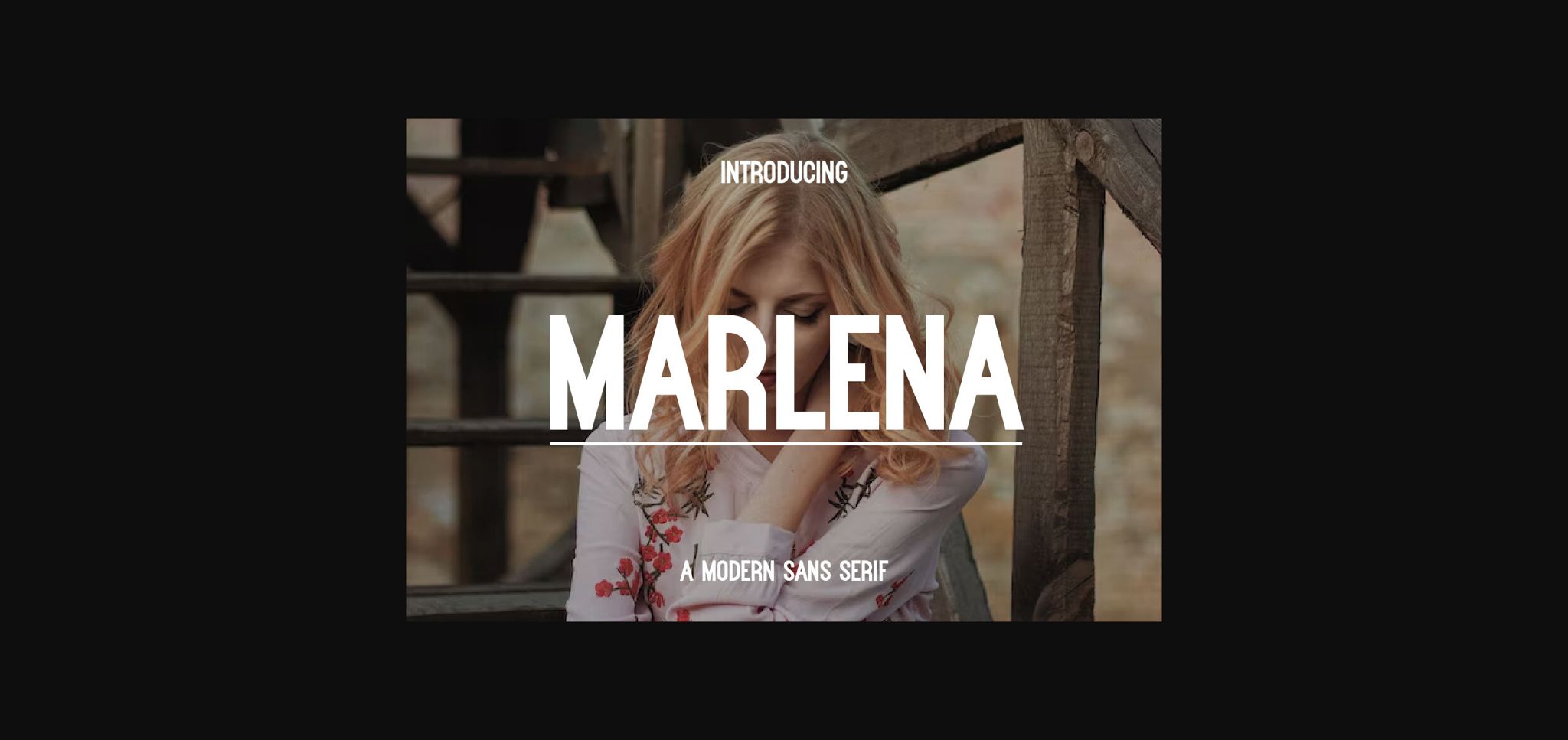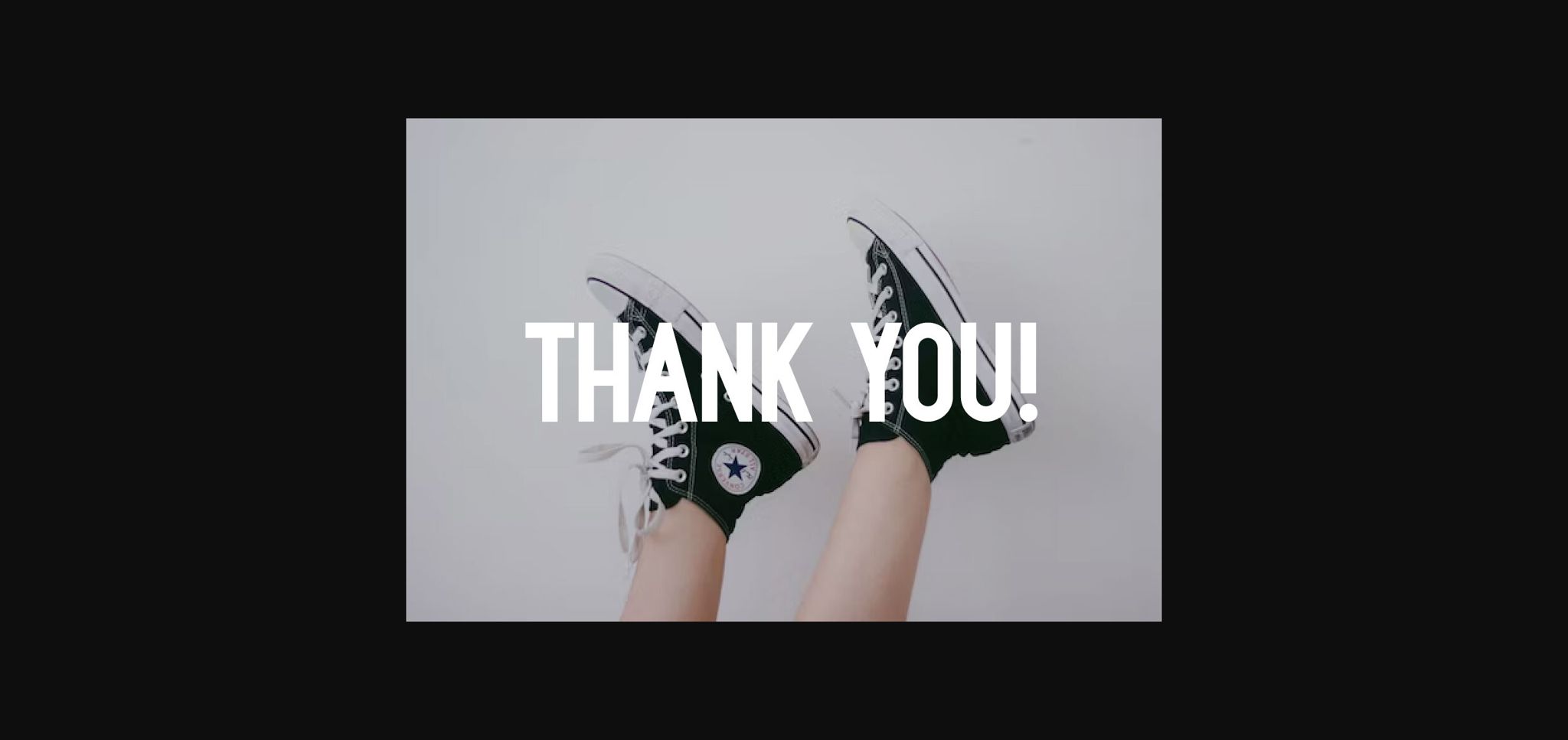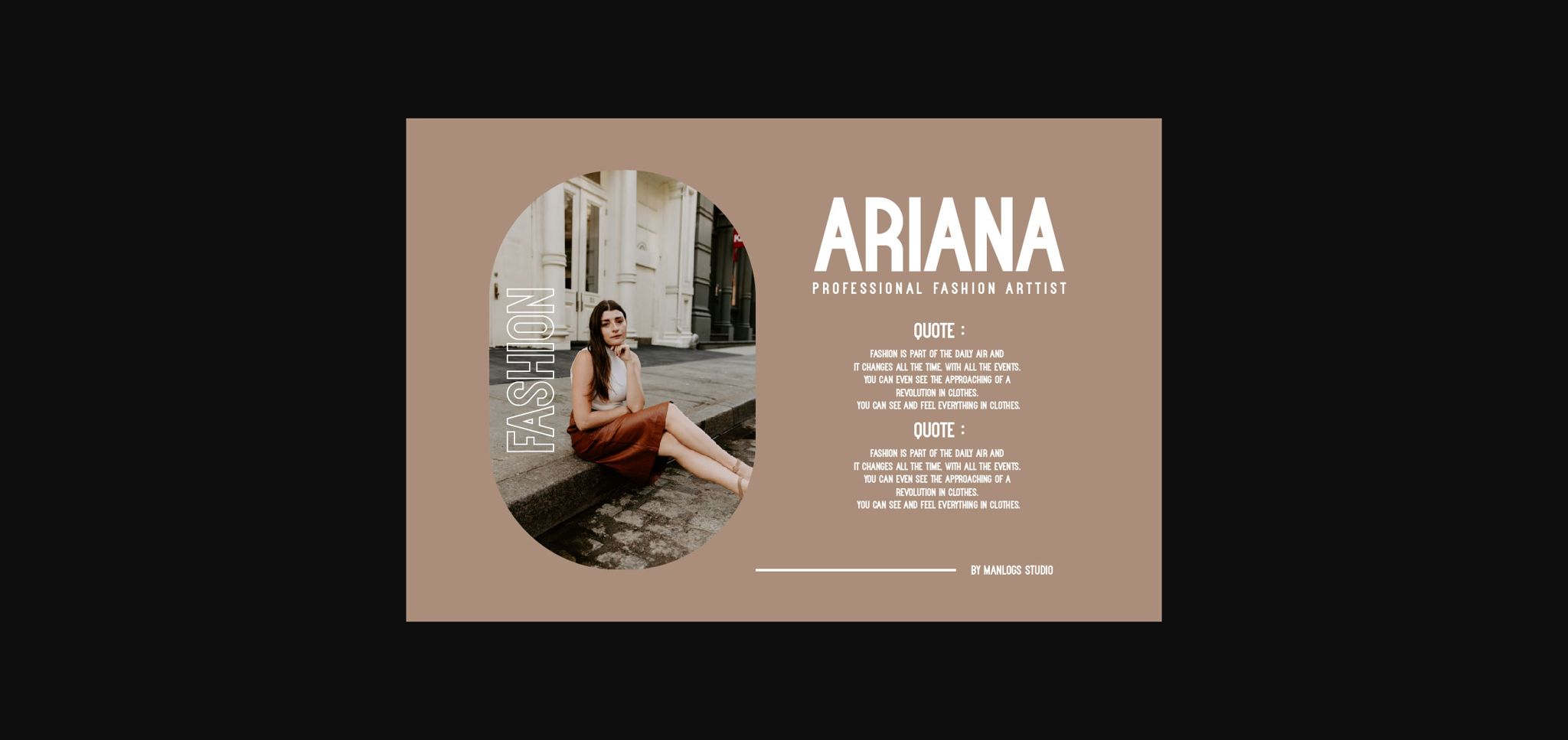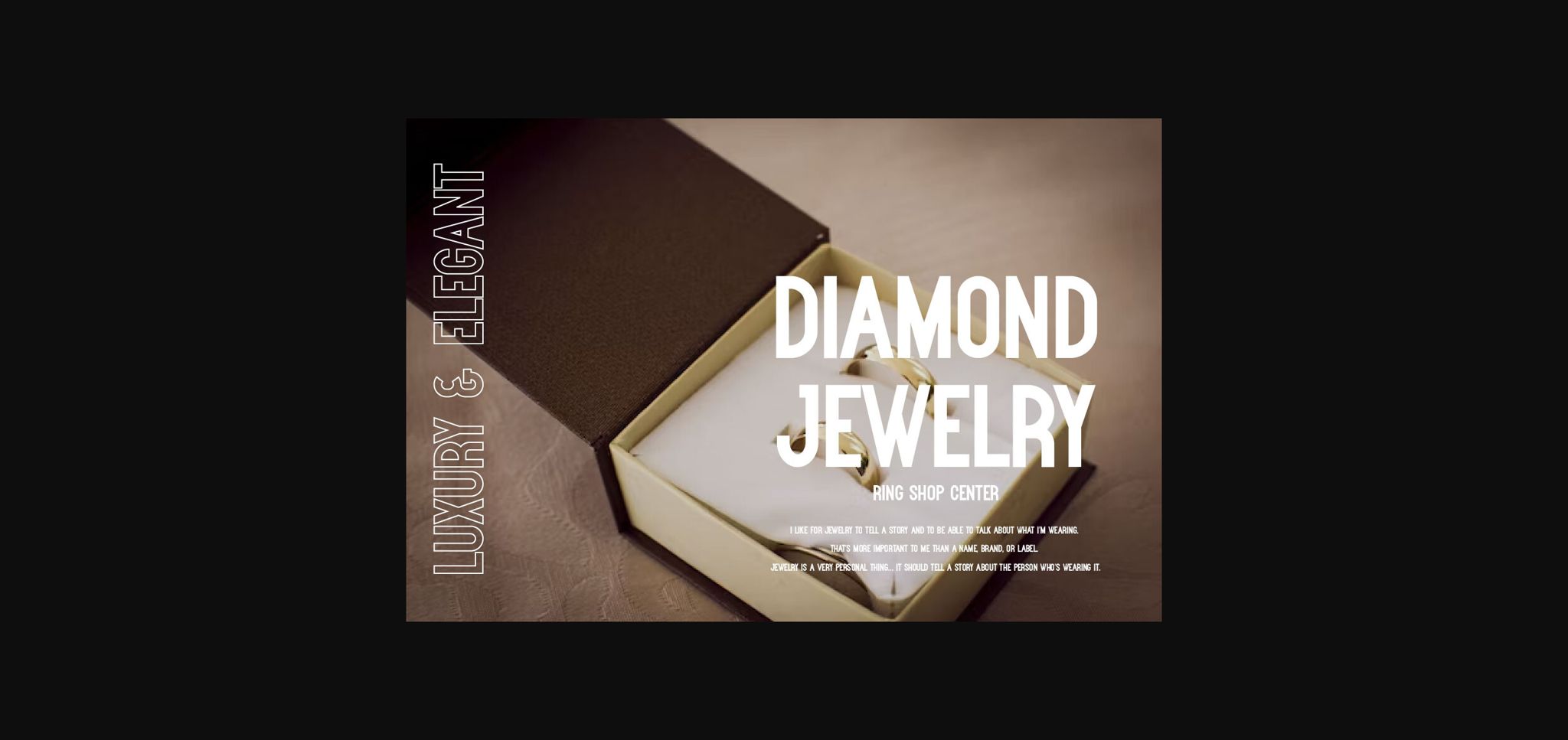
About Marlena Font
Marlena is a beautiful sans serif font that has a broad appeal and can be used for any project. This typeface will enhance your craft with little effort, making your product stand out from the competition.